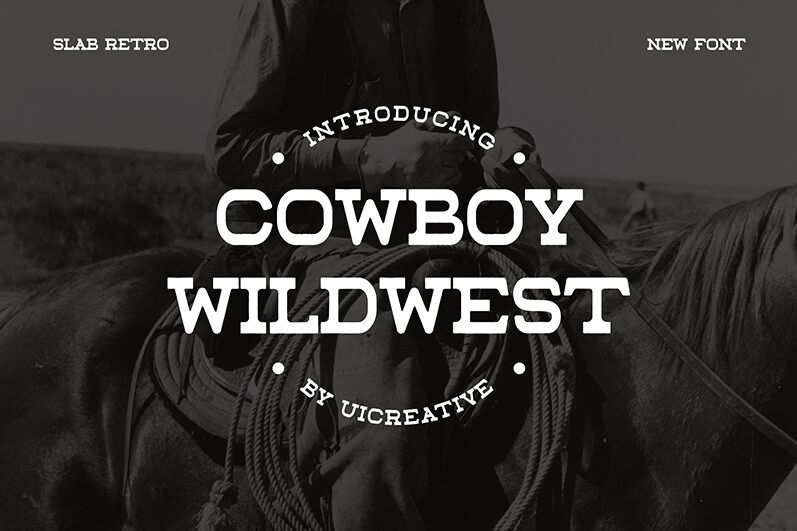
COWBOY WILDWEST
Cowboy Wildwest, a captivating display font crafted by UI Creative, emanates the rugged charm of the Wild West. With its expanded width and distinct western flair, this typeface commands attention, evoking a sense of adventure and frontier spirit. The bold, angular strokes and vintage-inspired detailing lend an unmistakable authenticity, while the overall aesthetic exudes a rustic elegance that is both timeless and visually striking.
This versatile font shines in a variety of design contexts, from western-themed branding and event materials to vintage-inspired product packaging and editorial layouts. Its strong personality makes it an excellent choice for attention-grabbing headlines, promotional signage, and impactful typographic compositions that celebrate the spirit of the American frontier.